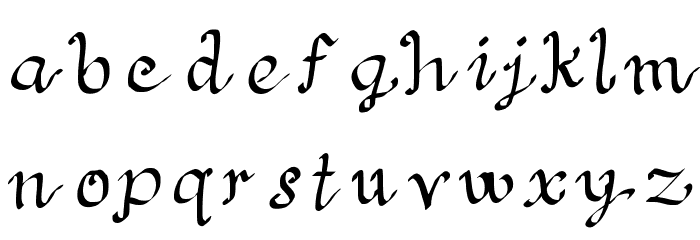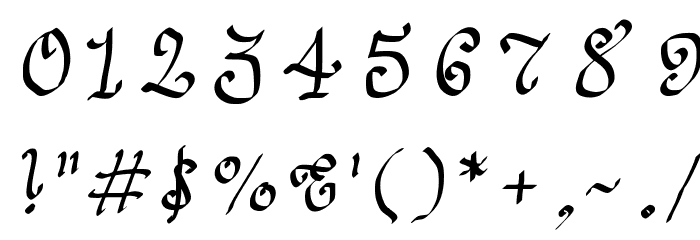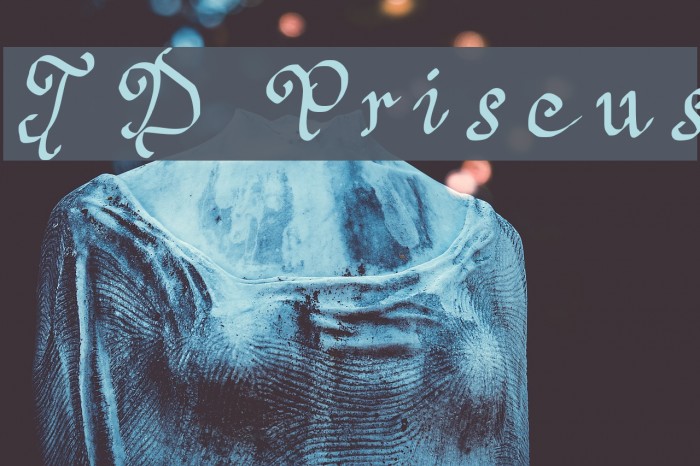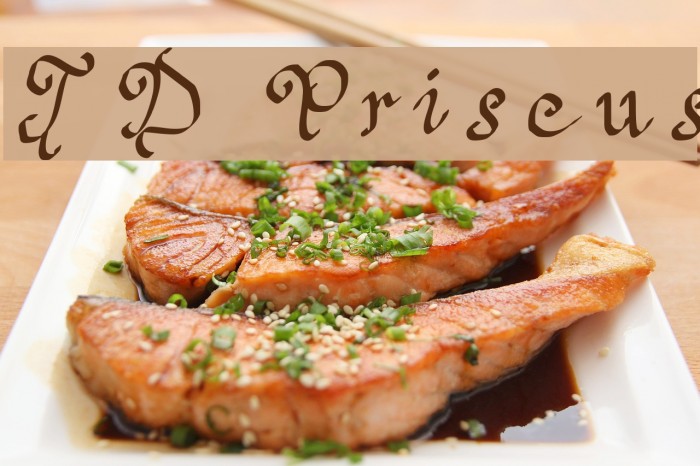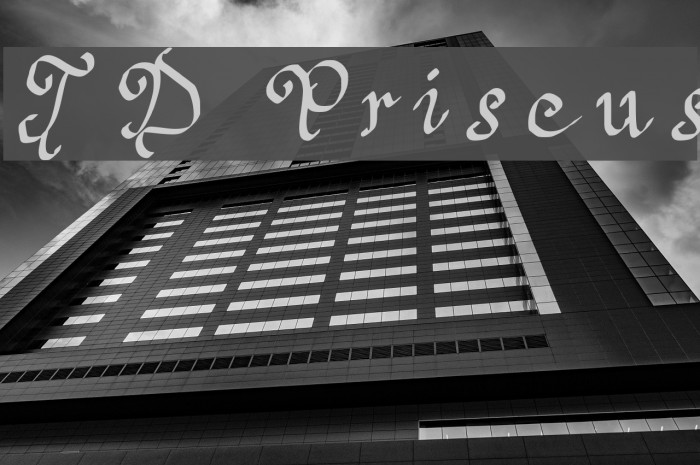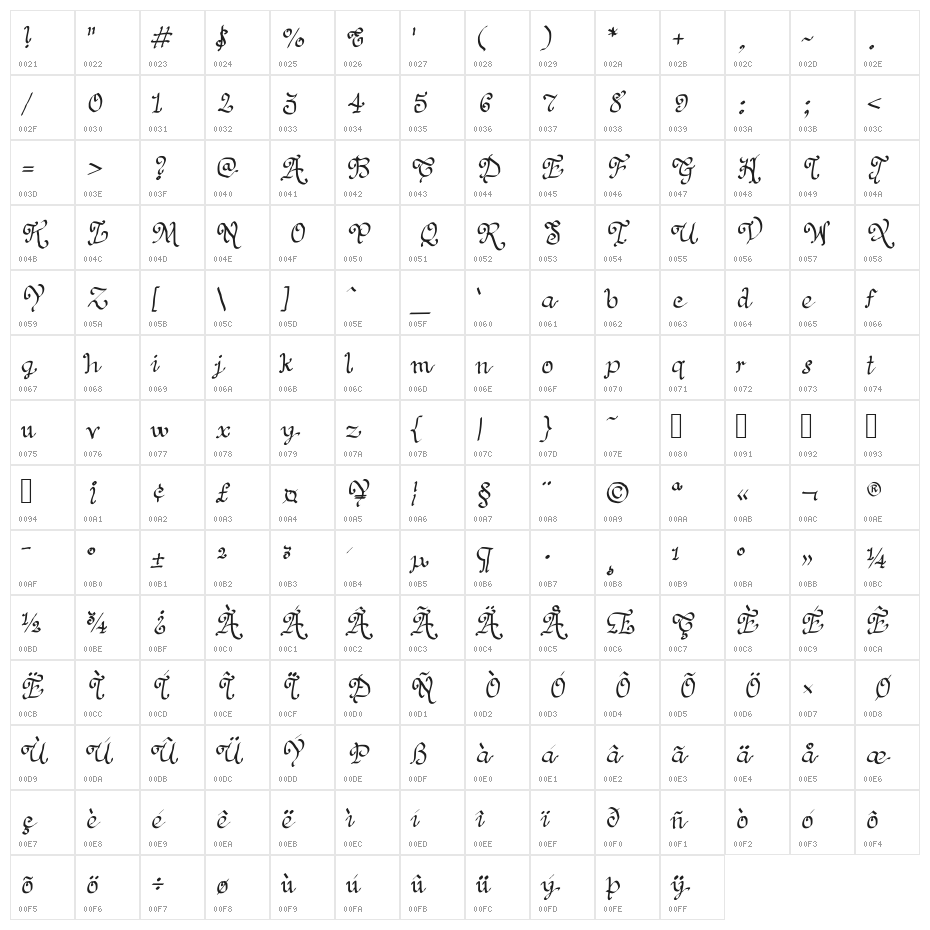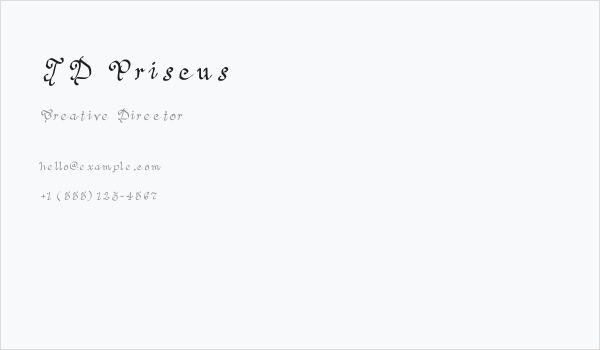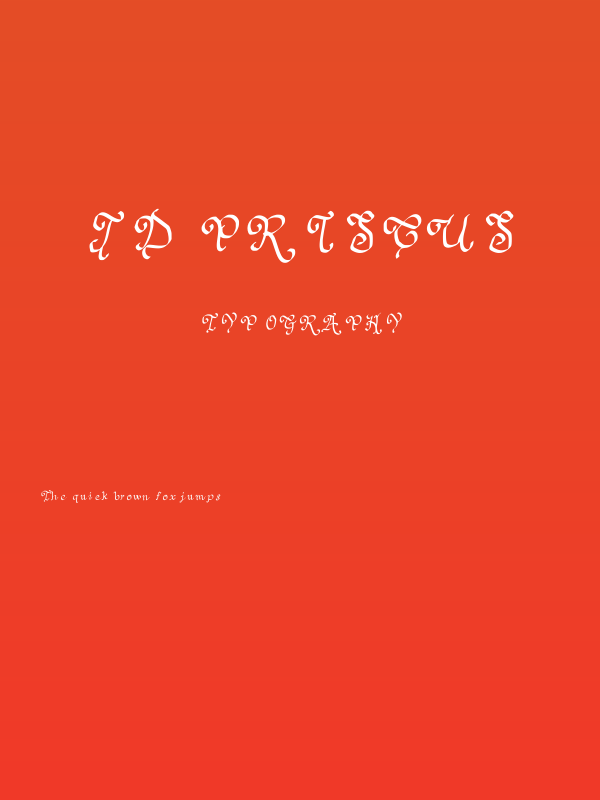
JD Priscus Font
This font exhibits a decorative and ornate style, characterized by its intricate and flowing letterforms. The uppercase letters feature elaborate swirls and embellishments, giving them a regal and sophisticated appearance. The lowercase letters maintain a similar style, with a slightly more restrained design that ensures readability while still offering a touch of elegance. The numerals are consistent with the overall theme, incorporating subtle curves and flourishes. Special characters are designed to complement the alphabet, maintaining the same level of detail and artistry. This font is ideal for projects that require a touch of elegance and sophistication, such as invitations, certificates, or branding for luxury products.
An ornate and decorative font with intricate, flowing letterforms.
- Proposed Projects: Ideal for invitations, certificates, luxury branding, and decorative headings.